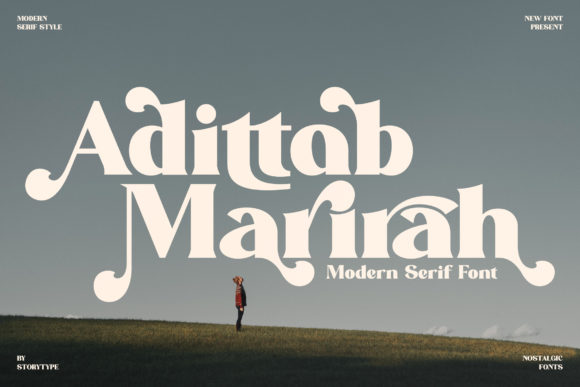
Adittab Marirah Font: The Epitome of Elegance and Distinction
Prepare to be captivated by Adittab Marirah Font, a serif masterpiece that exudes timeless sophistication and undeniable modernity. Crafted with meticulous attention to detail by the renowned Storytype Studio, this font family is a symphony of classic grace and contemporary flair.
Indulge in a world of limitless creativity with Adittab Marirah Font. Its versatility knows no bounds, seamlessly adapting to a myriad of design endeavors. Whether you seek to craft an unforgettable logo, breathe life into a captivating book or movie title, or elevate your fashion brand to new heights, this font will be your steadfast companion.
Embrace the allure of elegance as you weave your words into a tapestry of sophistication. Adittab Marirah Font's delicate curves and graceful strokes evoke a sense of luxury and refinement, transforming your designs into works of art.
Unleash your inner artist and let your imagination soar. Adittab Marirah Font is the perfect canvas for your creative visions. Its meticulous design ensures effortless readability, making your words dance across the page with clarity and impact.
Elevate your designs to the realm of the extraordinary with Adittab Marirah Font. Its PUA encoding grants you access to a treasure trove of stunning glyphs and ligatures, empowering you to add intricate details and flourishes that will captivate your audience.
Step into a world of endless possibilities with Adittab Marirah Font. Let its timeless elegance and modern charm ignite your creativity and guide you towards design masterpieces that will leave an enduring mark.